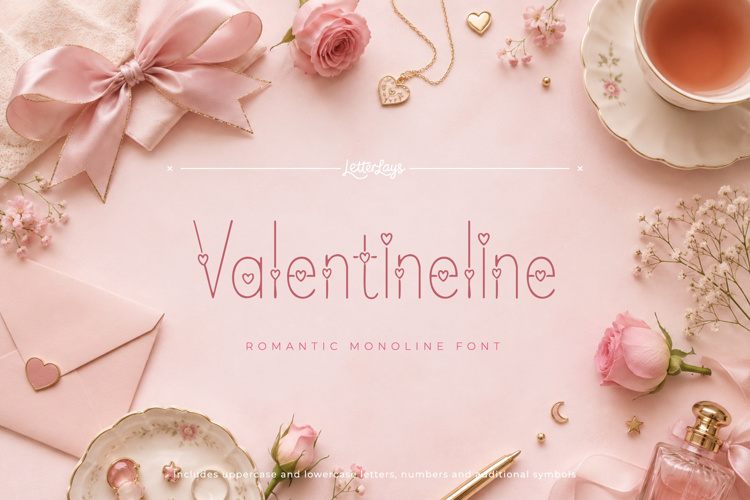
Valentineline Font
✦ Valentineline Free is a limited personal-use demo of the full Valentineline typeface by Letterlays. Create wedding stationery, love cards, romantic branding, valentine graphics, and expressive display graphics with Valentineline.
🎨 Style notes: ✨ Valentineline is a romantic monoline display font with tender heartline details, sweet stationery colors, and delicate love-note elegance.